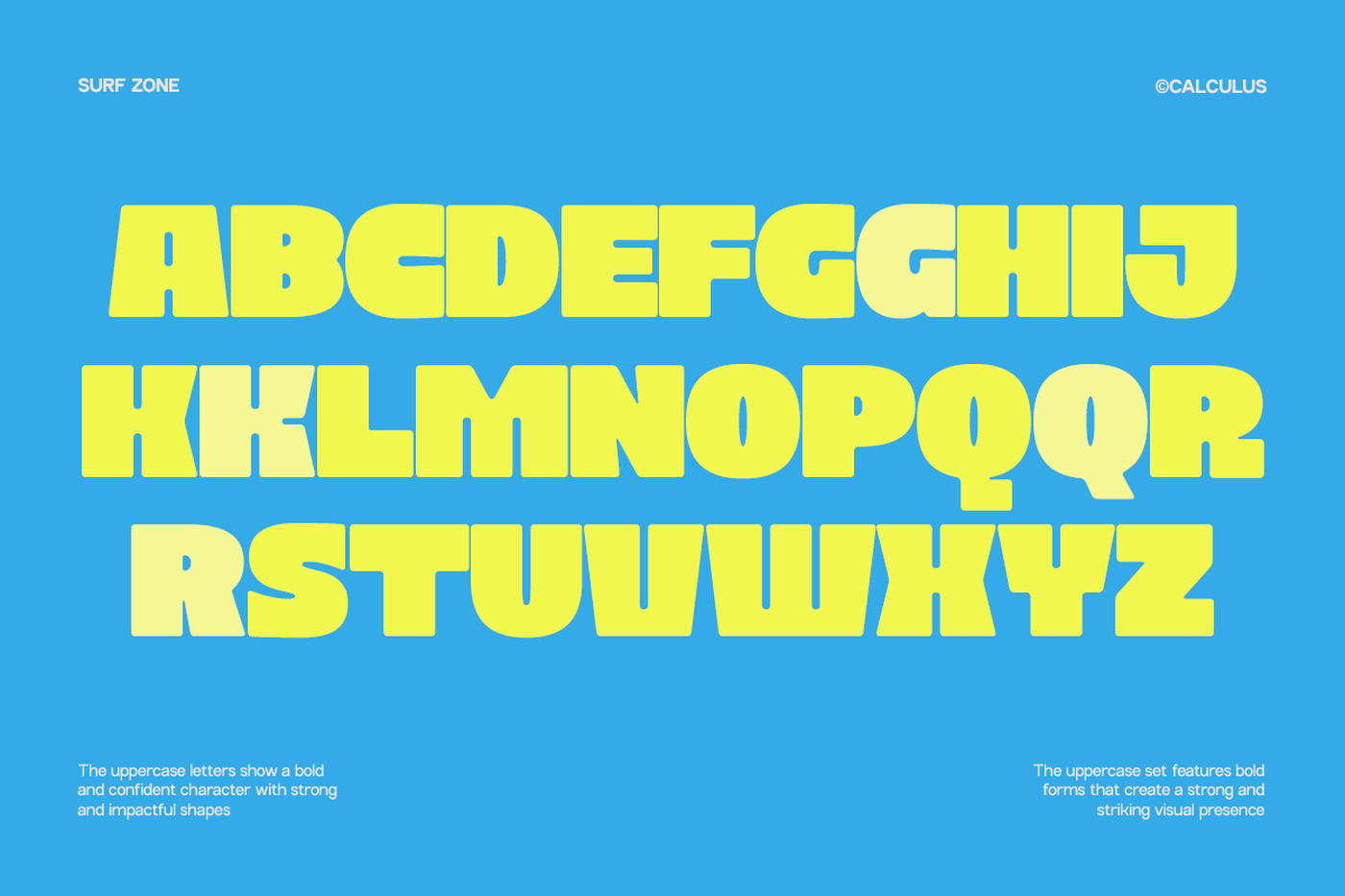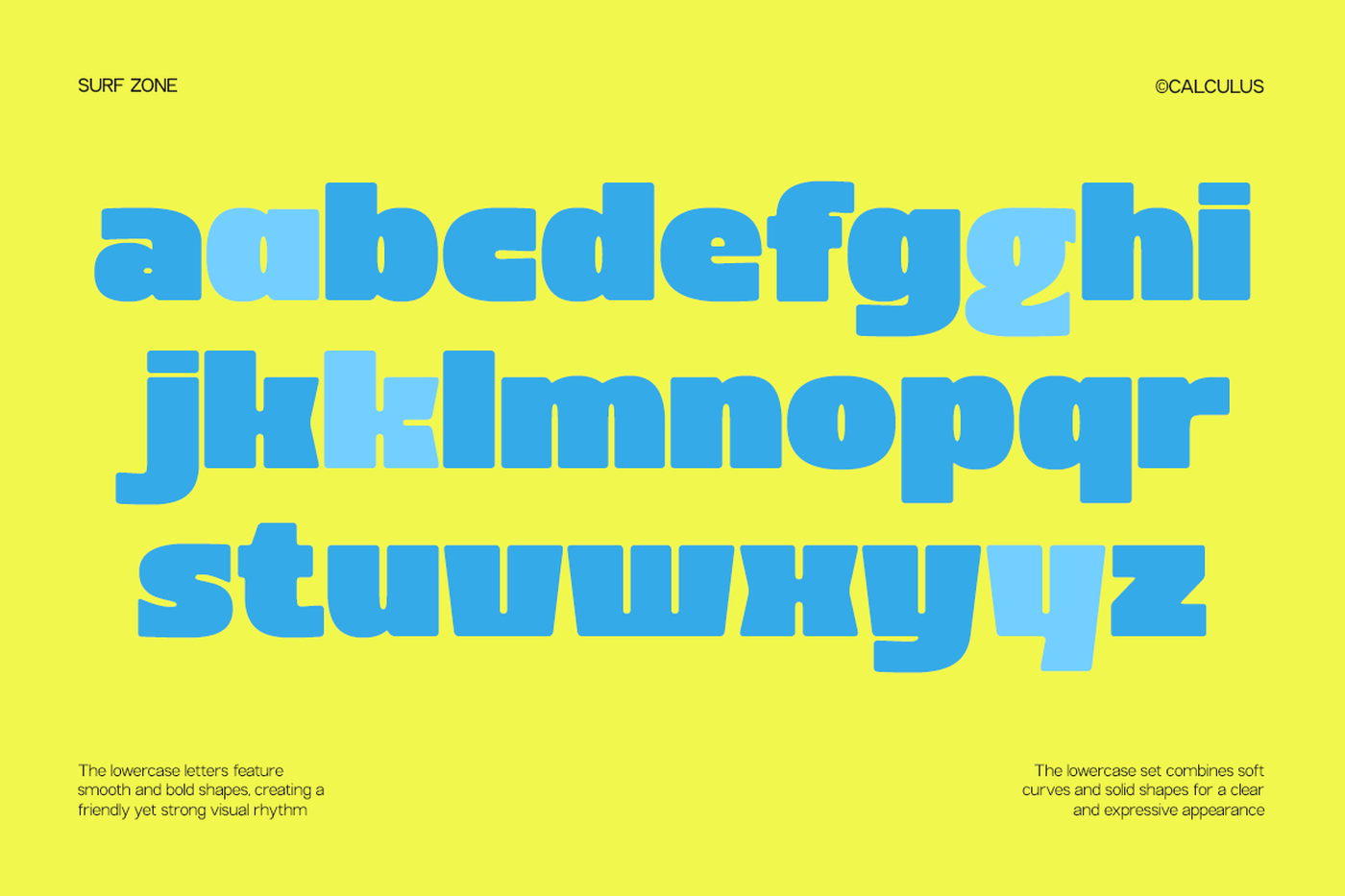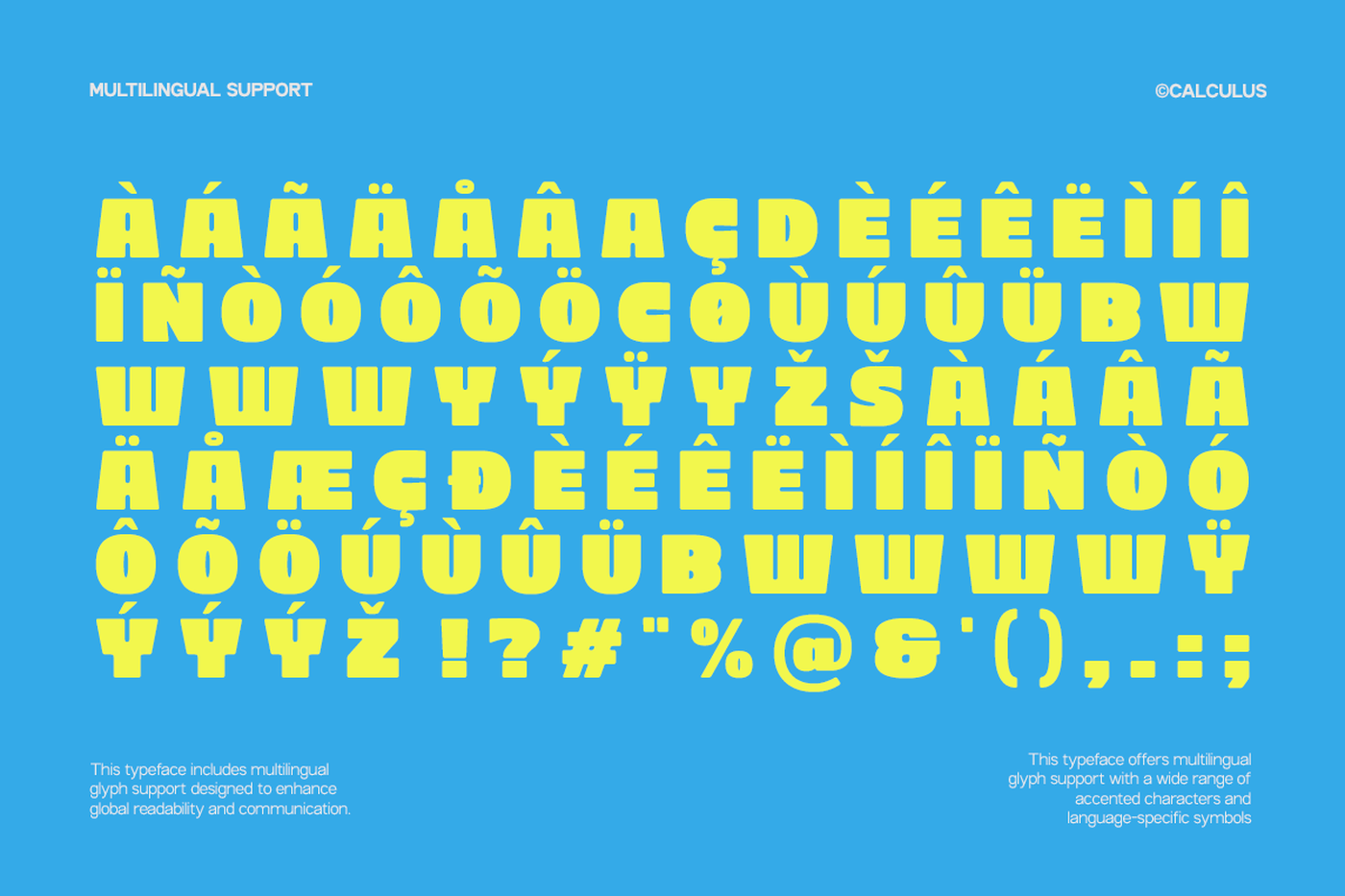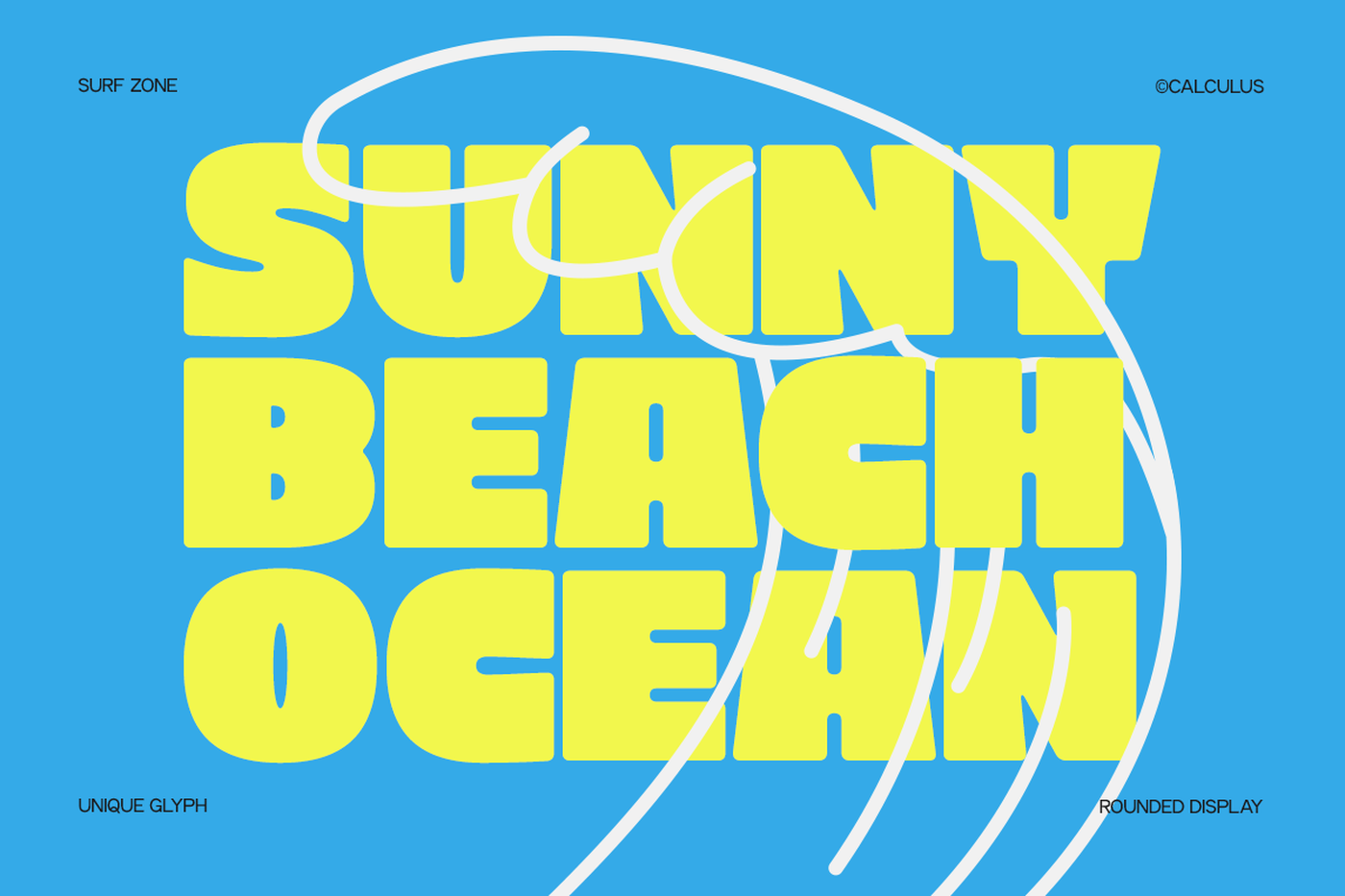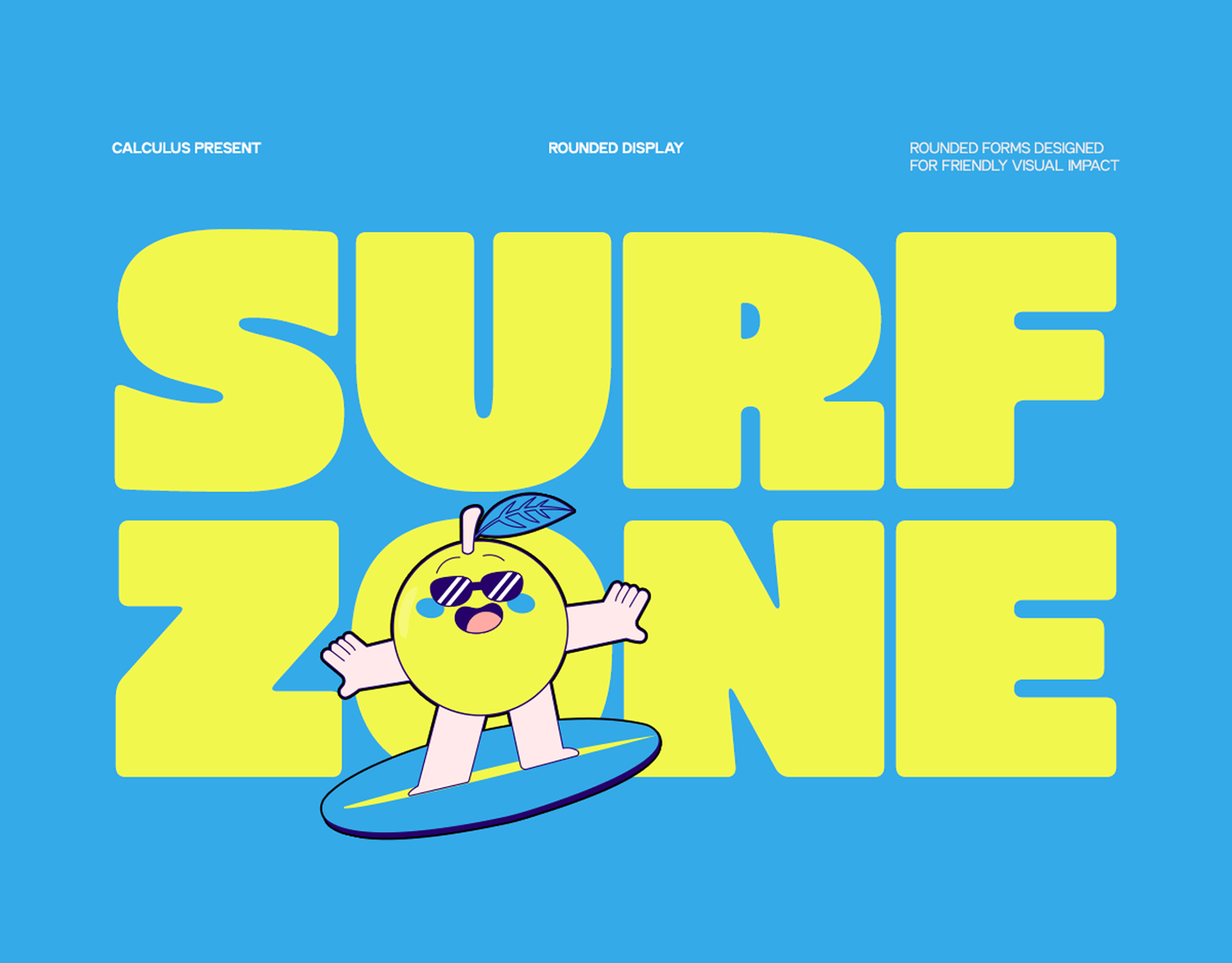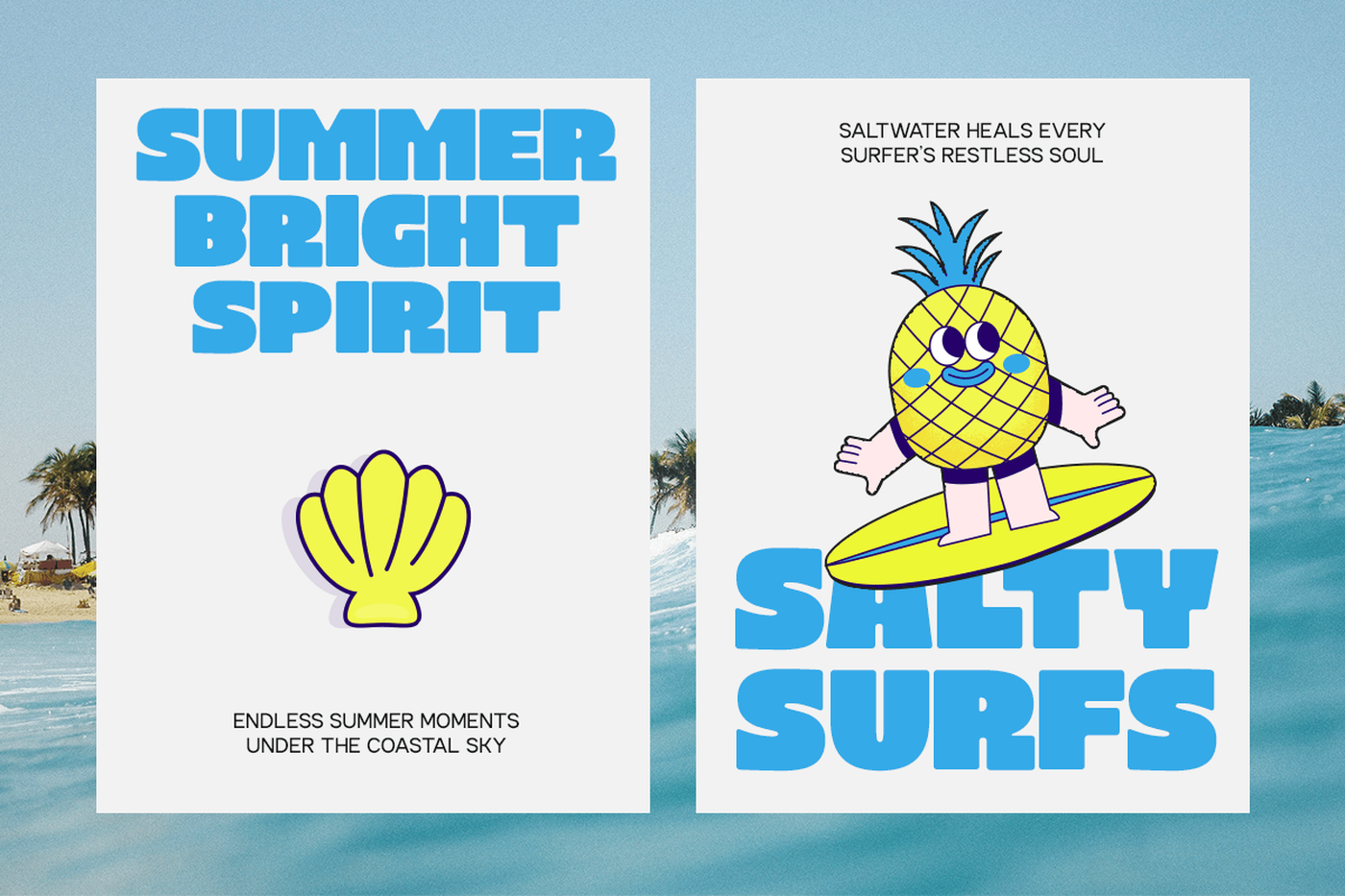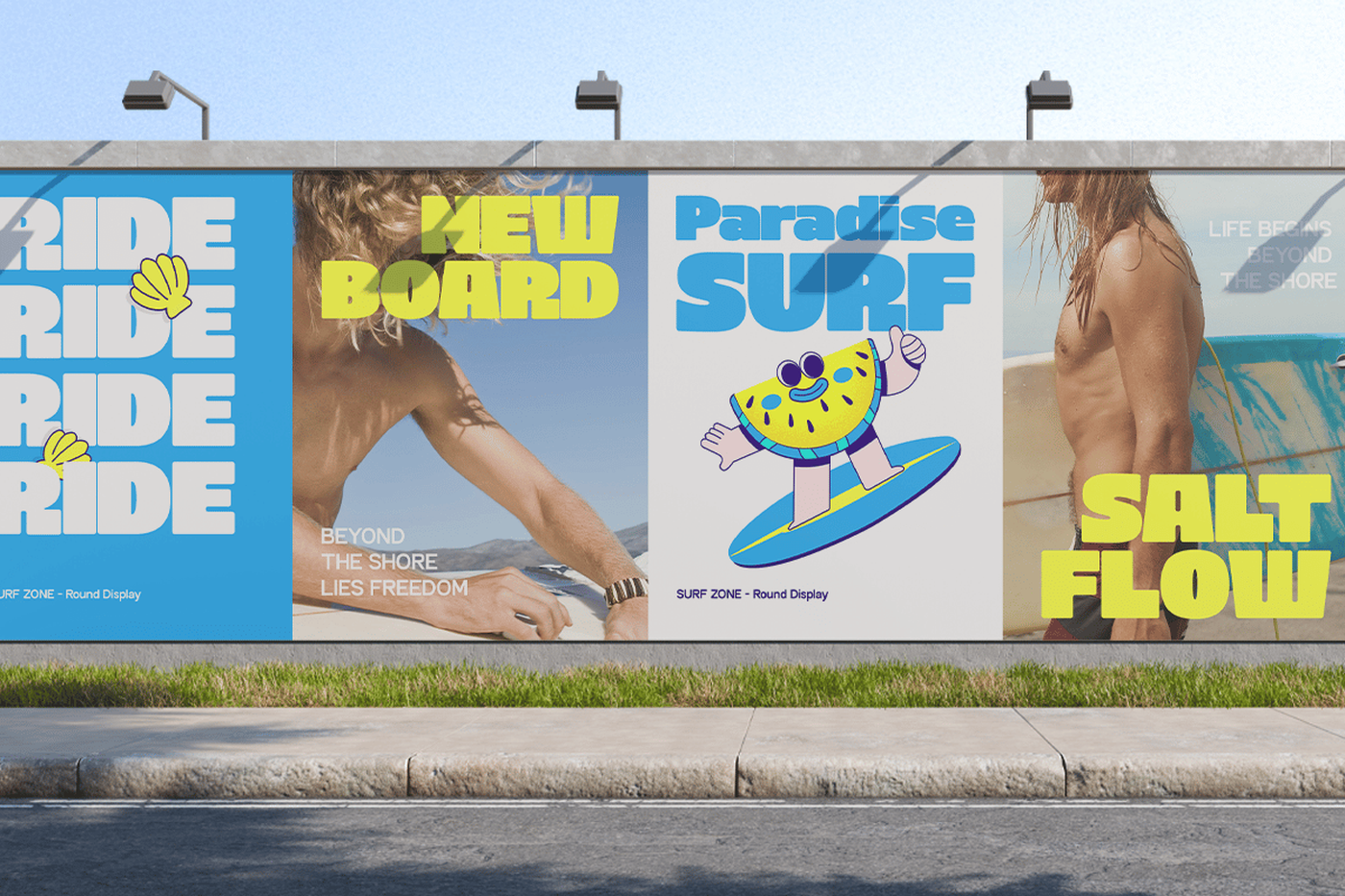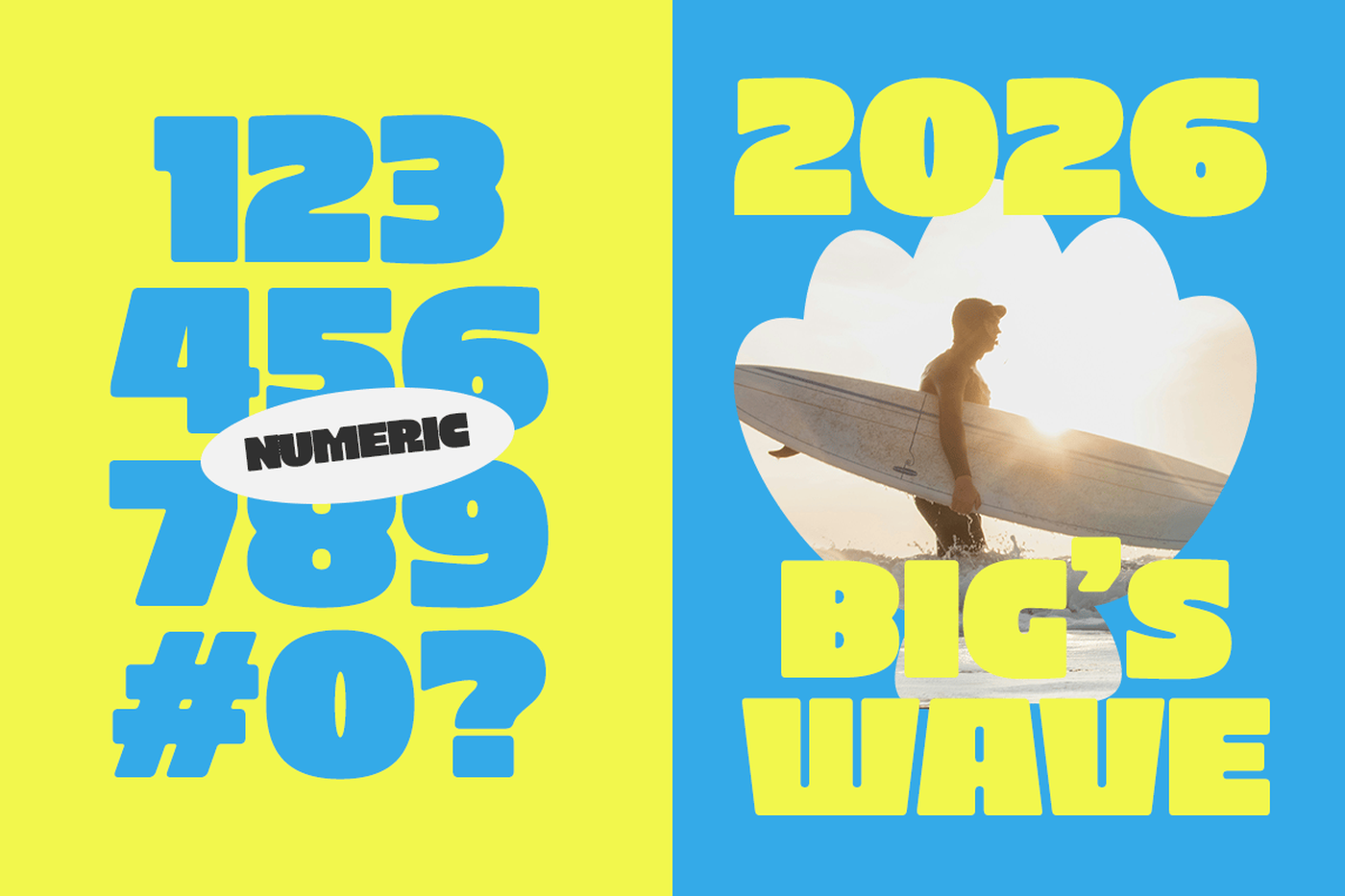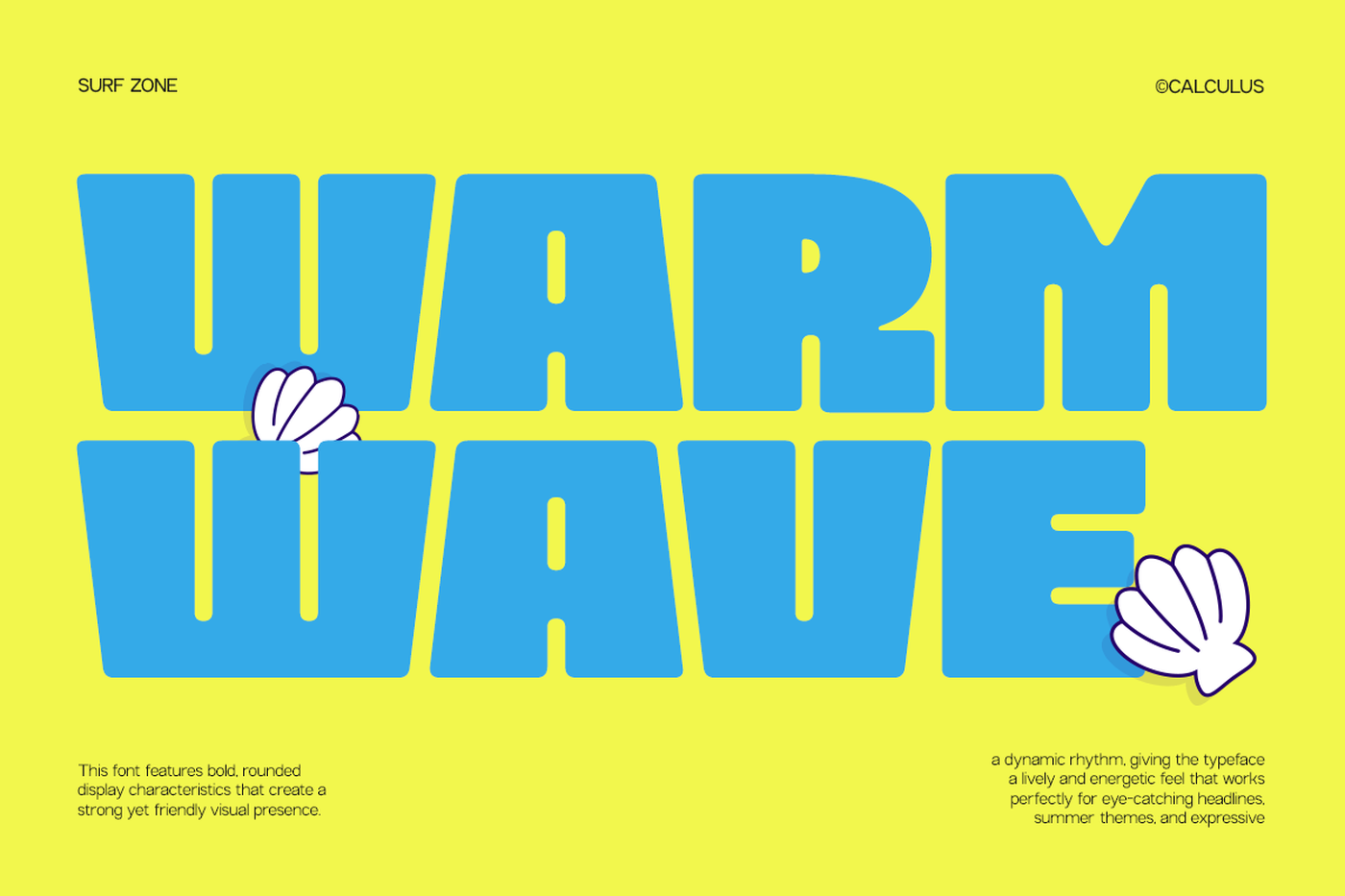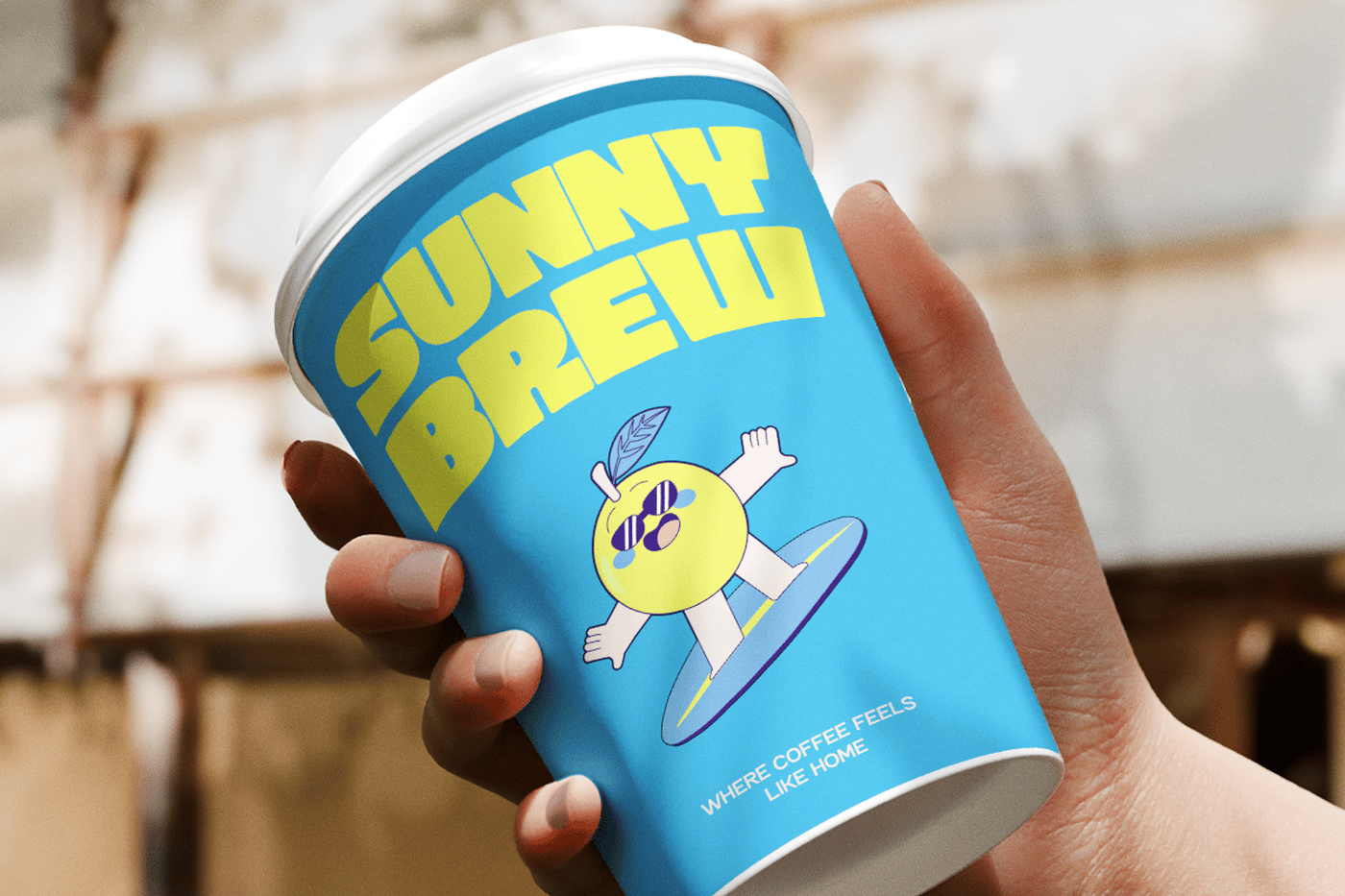
Surf Zone - Rounded Bold Display Font
CC Surf Zone is a bold display typeface crafted to bring a fun, energetic, and modern personality into every design. Featuring rounded edges combined with strong, condensed proportions, this font creates a friendly yet powerful visual presence that stands out effortlessly in large-scale compositions. Its smooth curves soften the bold structure, making it both approachable and impactful. Designed to balance playfulness with clarity, CC Surf Zone is perfect for branding, posters, editorial headlines, logo design, packaging, and digital interfaces. The compact letterforms maximize space efficiency while maintaining a bold and cohesive silhouette, and the rounded detailing adds a contemporary, approachable aesthetic suited for vibrant and creative projects.